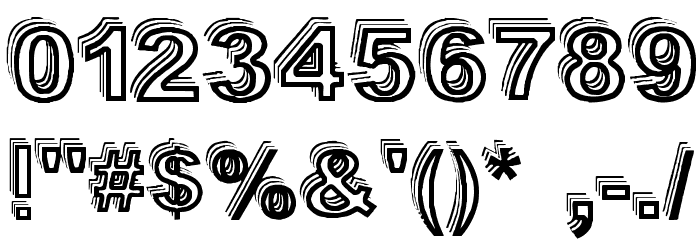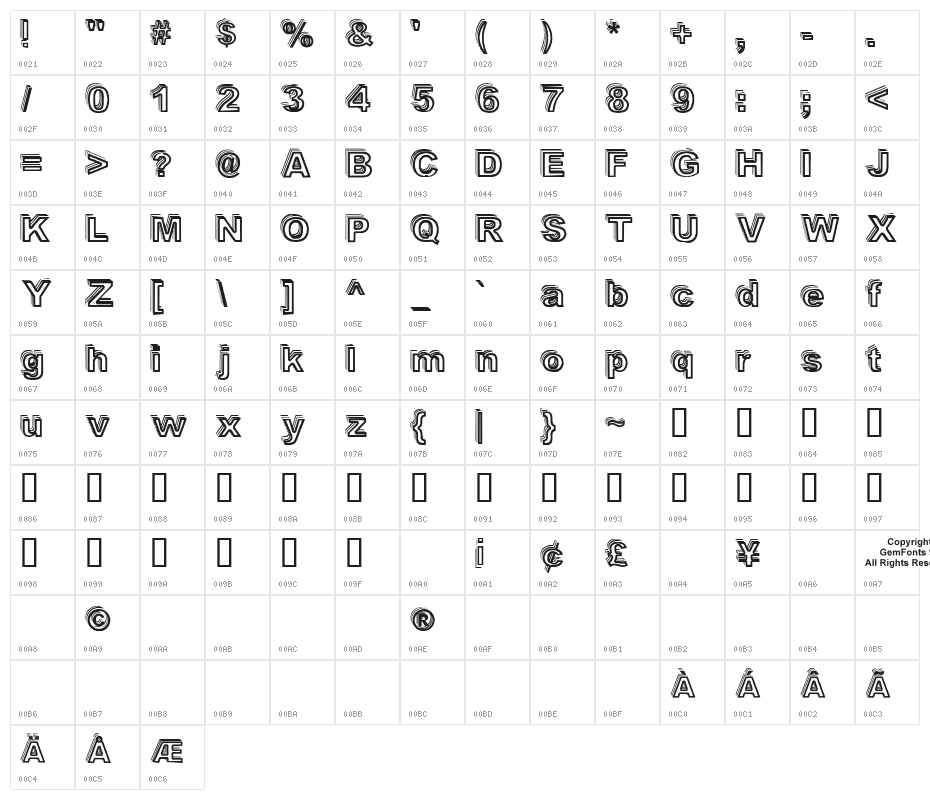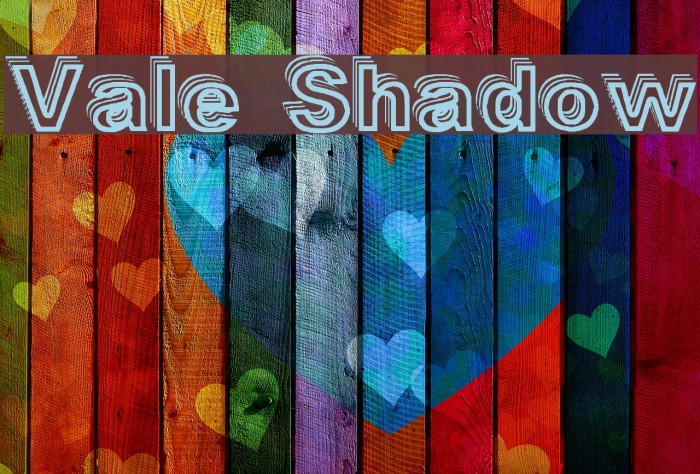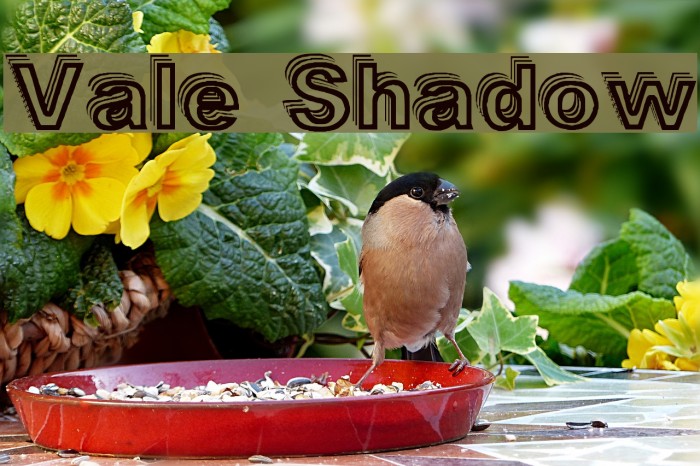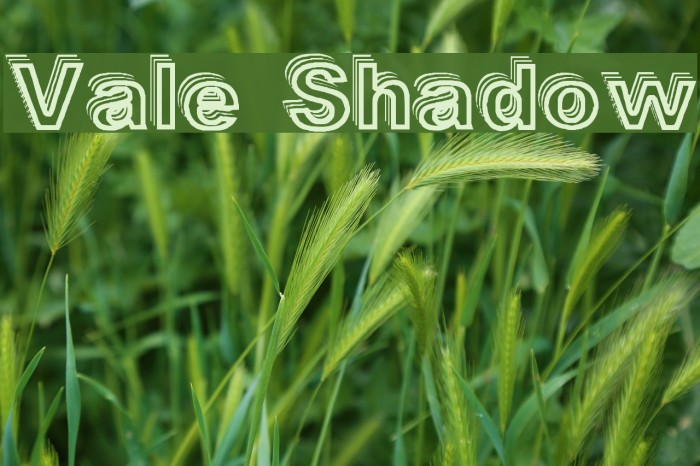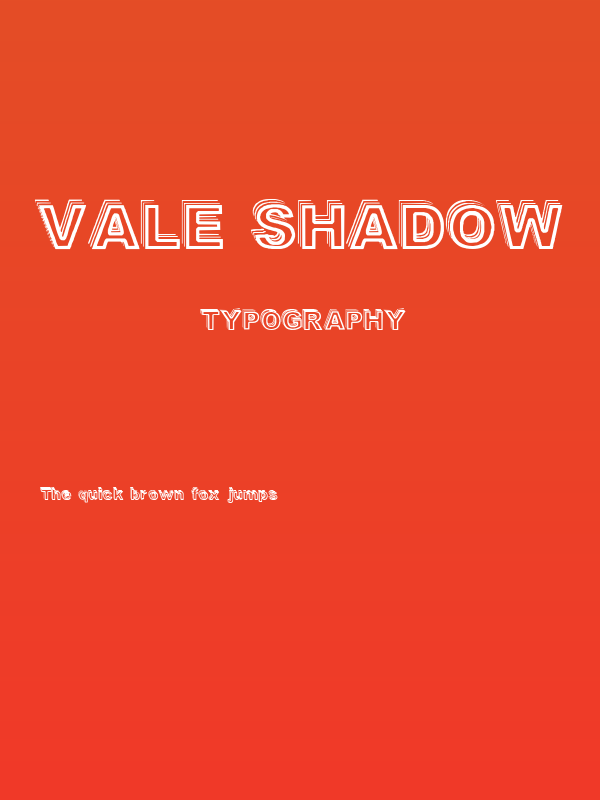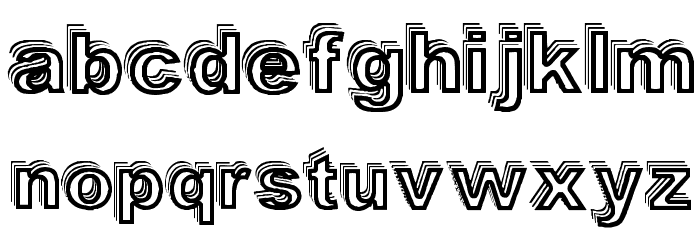
Vale Shadow Font
Vale Shadow Description
This font features a bold, shadowed style that gives each character a three-dimensional effect. The uppercase and lowercase letters maintain a consistent thickness, with a distinct shadow that adds depth and visual interest. The numerals and special characters follow the same design, ensuring uniformity across all elements. The font's geometric structure and clean lines make it suitable for modern and dynamic designs. Its unique shadow effect makes it stand out, ideal for projects that require a strong visual impact.
| Proposed Projects | This font is perfect for poster designs, headlines, branding projects, and any creative work that requires a bold statement. |